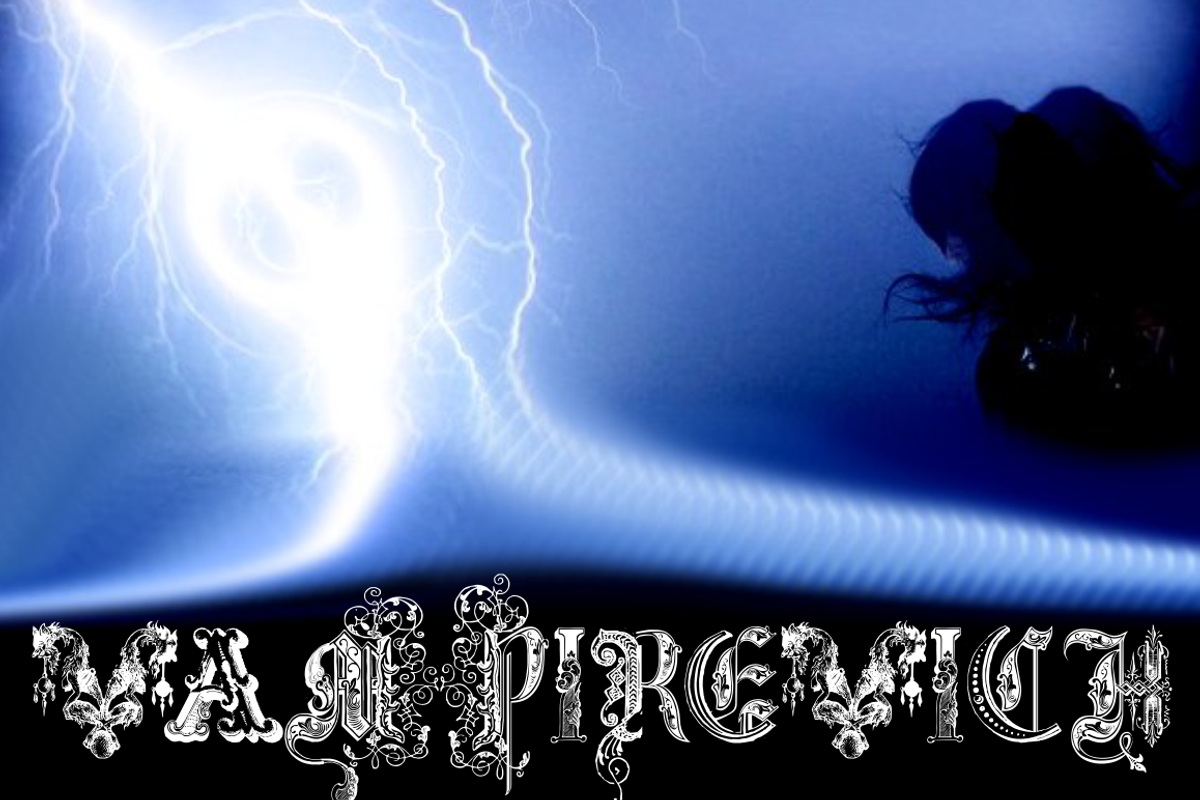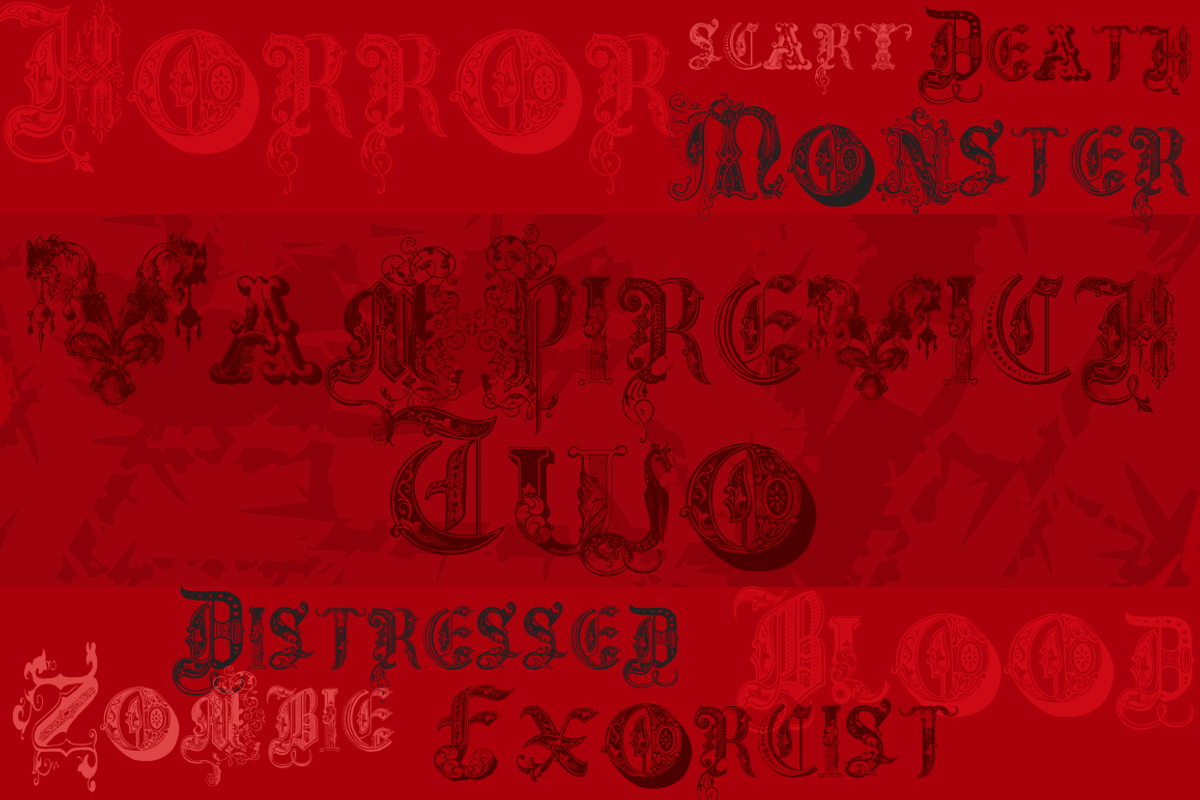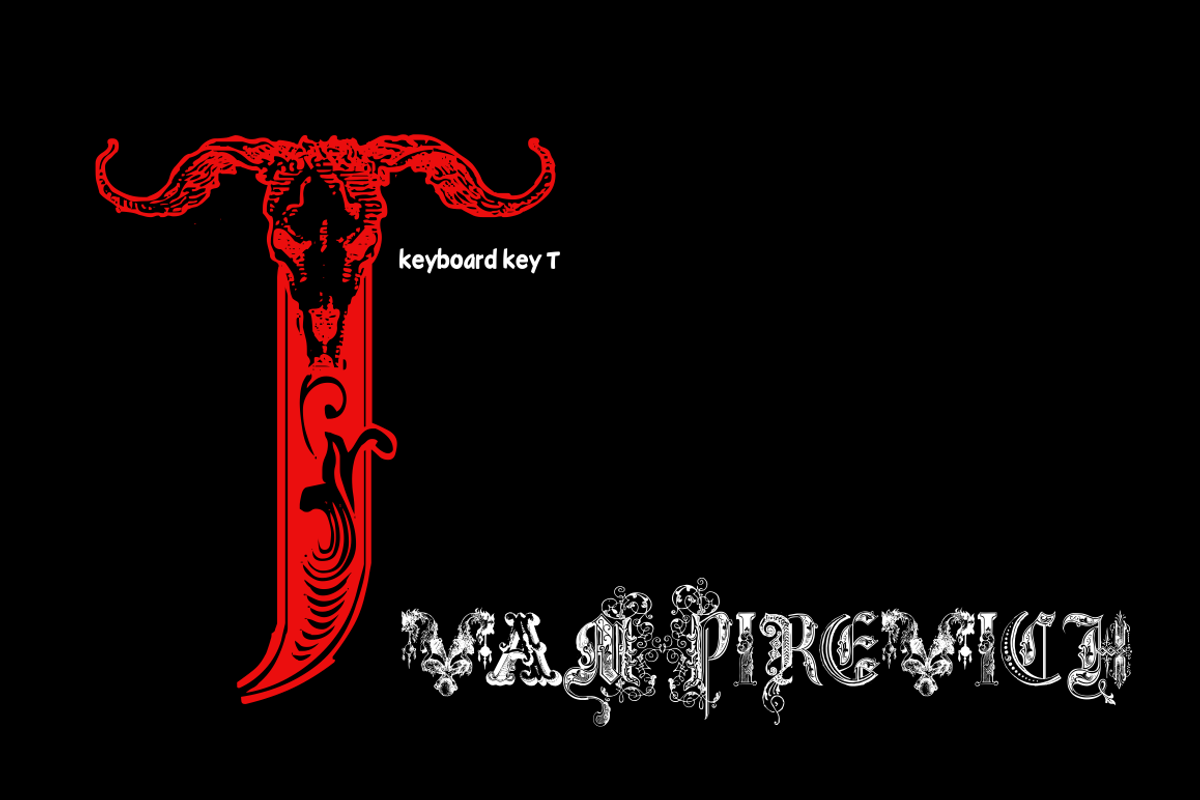
Vampirevich - pack with 3 fonts
Vampirevich - pack with 3 fonts by Intellecta Design is a font selected for branding, posters, packaging, typography.
- Vampirevich Regular
- Vampirevich Two Regular
- VampirevichVersals Regular
Vampirevich - pack with 3 fonts by Intellecta Design fits naturally into Branding, posters, packaging, typography.